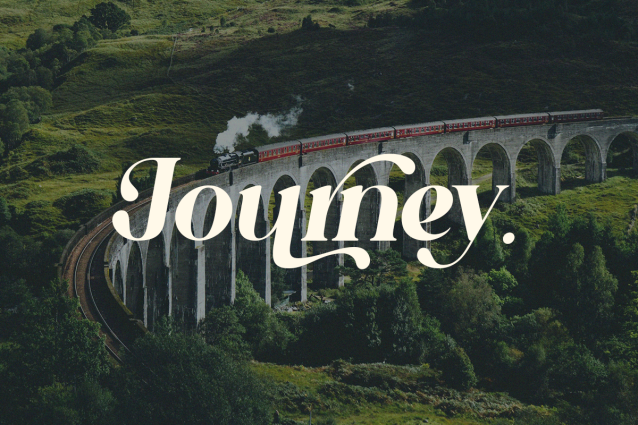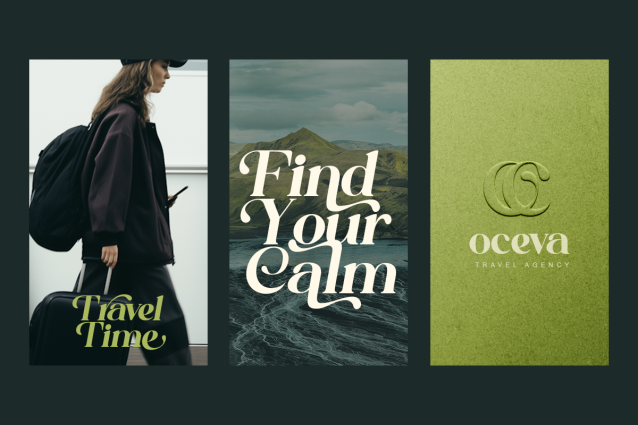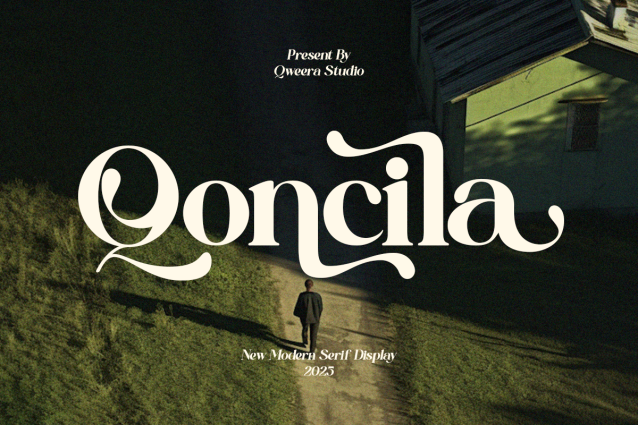
Qoncila Serif Font
Qoncila Serif Font a bold modern swash serif crafted for designers who love strong presence and refined curves. Its expressive letterforms and dramatic terminals create an unforgettable typographic rhythm that stands out in logos, branding, and editorial layouts.Qoncila balances boldness with elegance, making it ideal for fashion brands, luxury packaging, boutique identity systems, and magazine headlines.